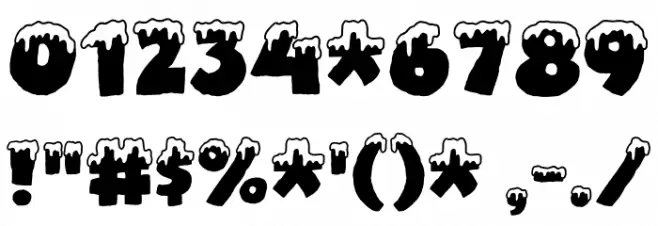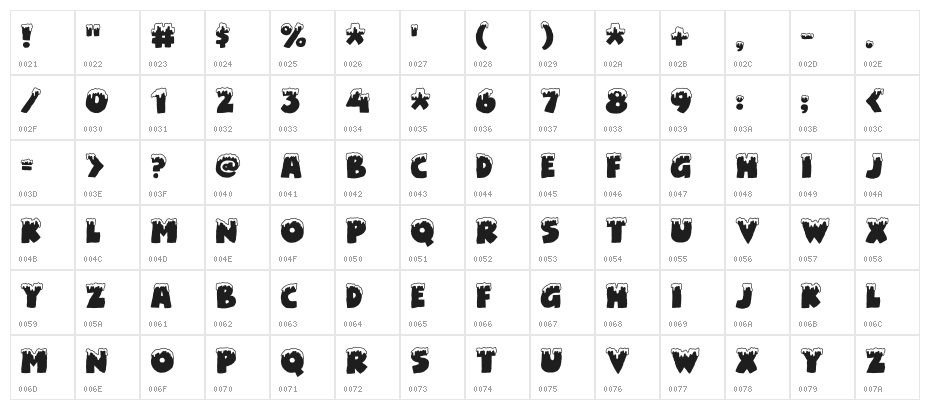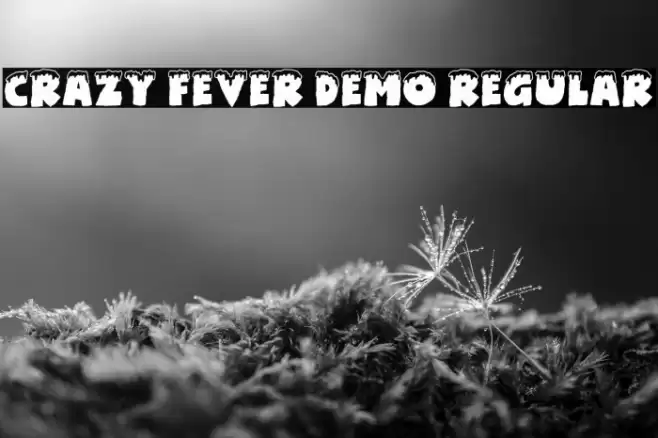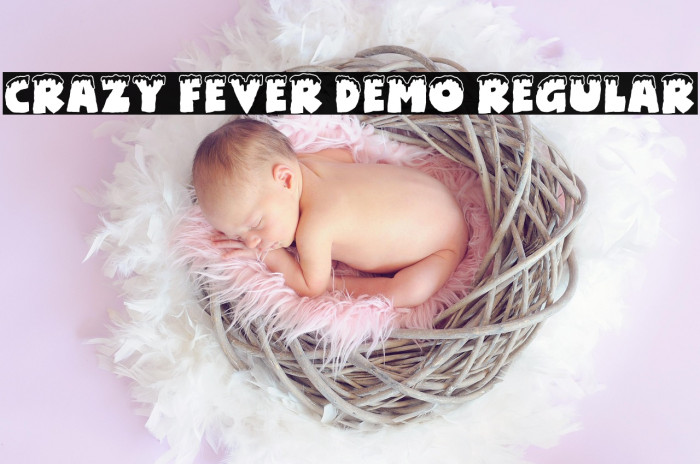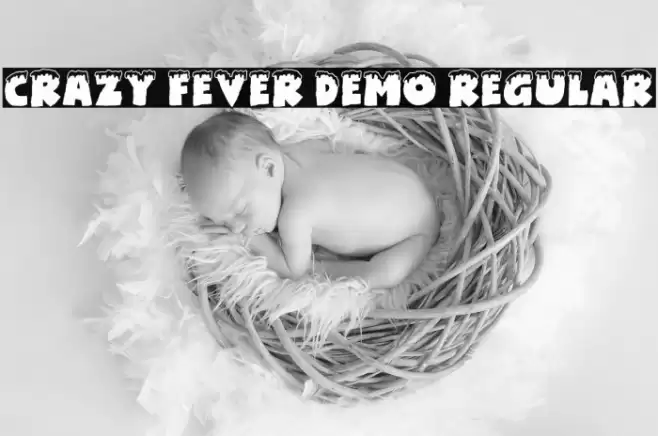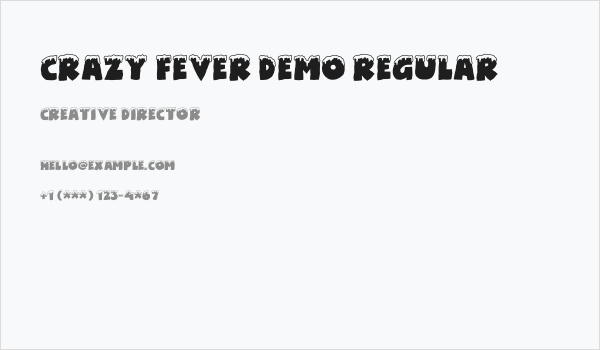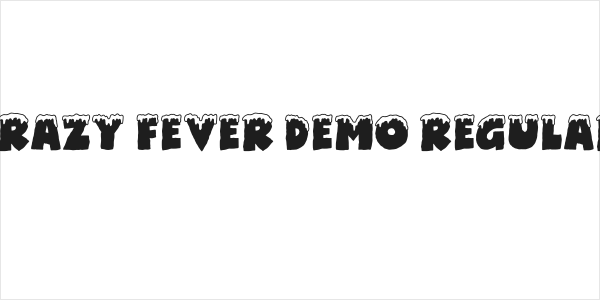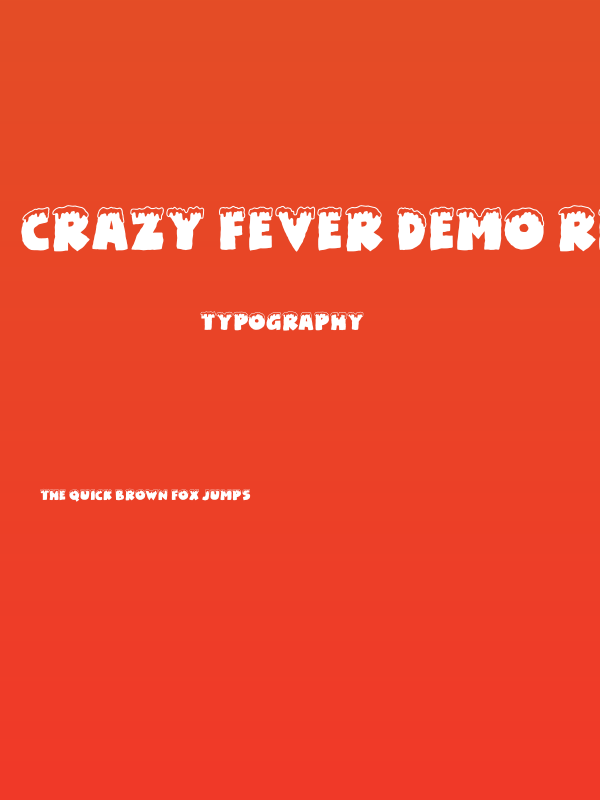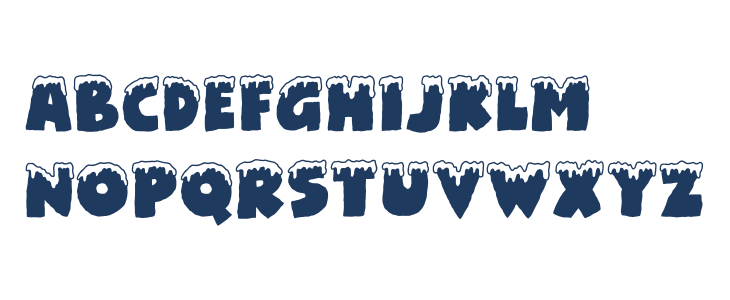
Crazy Fever DEMO Regular Font
Crazy Fever DEMO Regular Description
This font features a playful and whimsical design, characterized by bold, chunky letters that appear to be dripping or melting, reminiscent of snow or ice cream. The uppercase and lowercase letters maintain a consistent style, with exaggerated curves and a slightly uneven baseline that adds to its quirky charm. The numbers and special characters follow the same playful theme, making it suitable for creative and fun projects. Its unique style is eye-catching and memorable, perfect for drawing attention.
| Proposed Projects | Ideal for holiday-themed designs, children's book covers, party invitations, or any project requiring a fun and whimsical touch. |